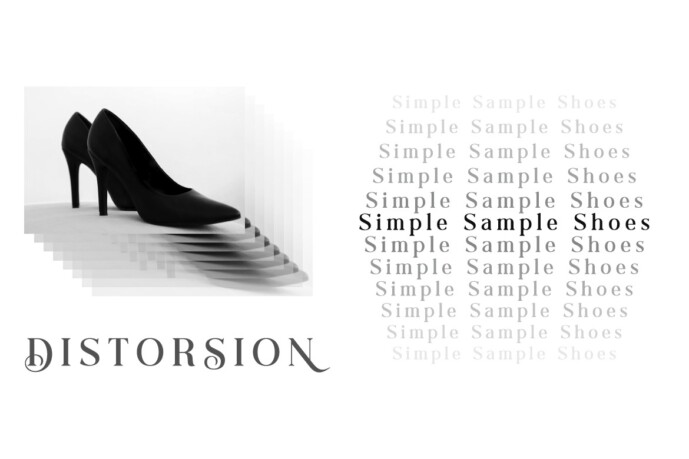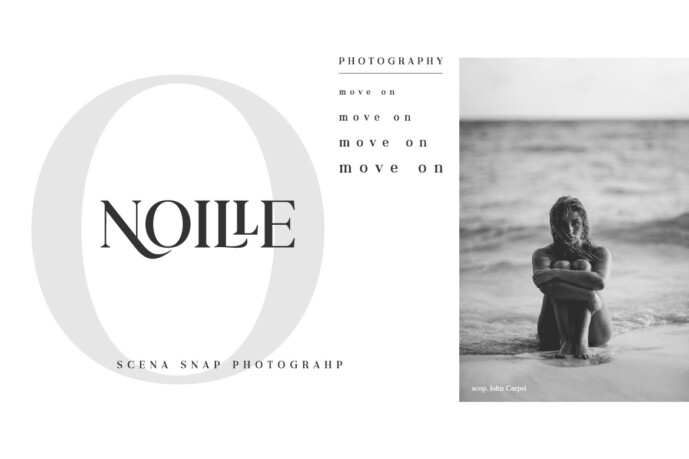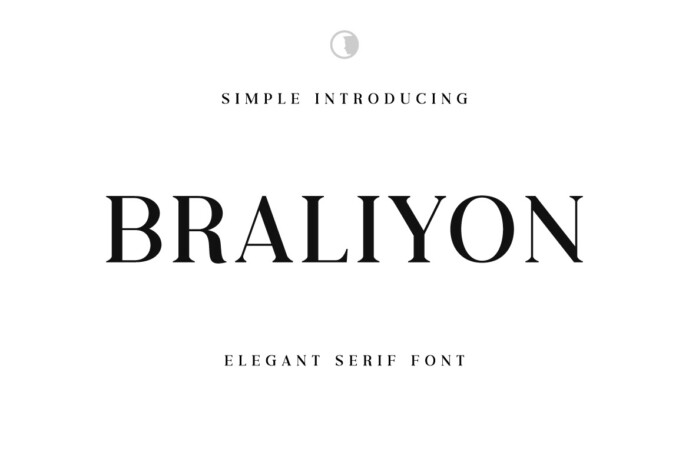
Braliyon An Elegant Font
Braliyon An Elegant Font is an elegant serif font inspired by classic Art Deco. It perfectly represents vintage in a modern and minimalist way.